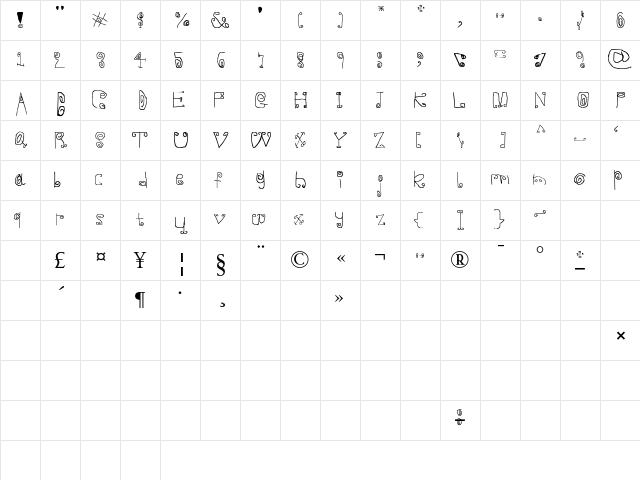
Angered Teachers Regular
Design Context for Angered Teachers
Angered Teachers is a composed and adaptable typeface that performs quietly and consistently across a wide range of design contexts.